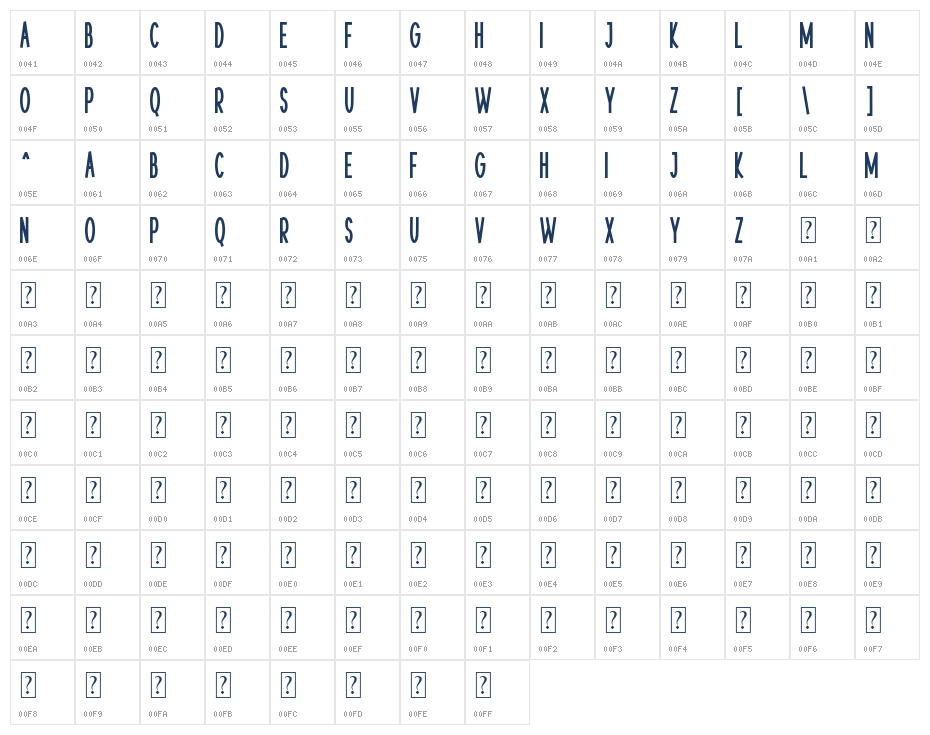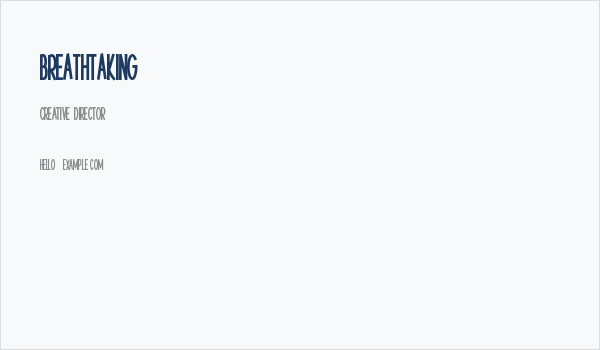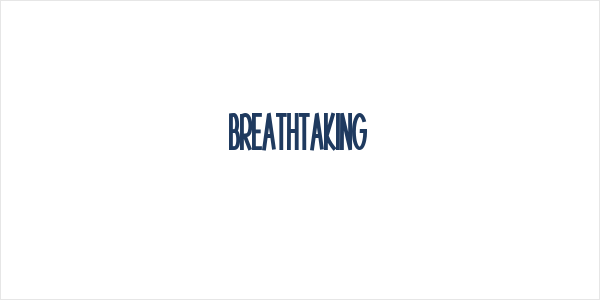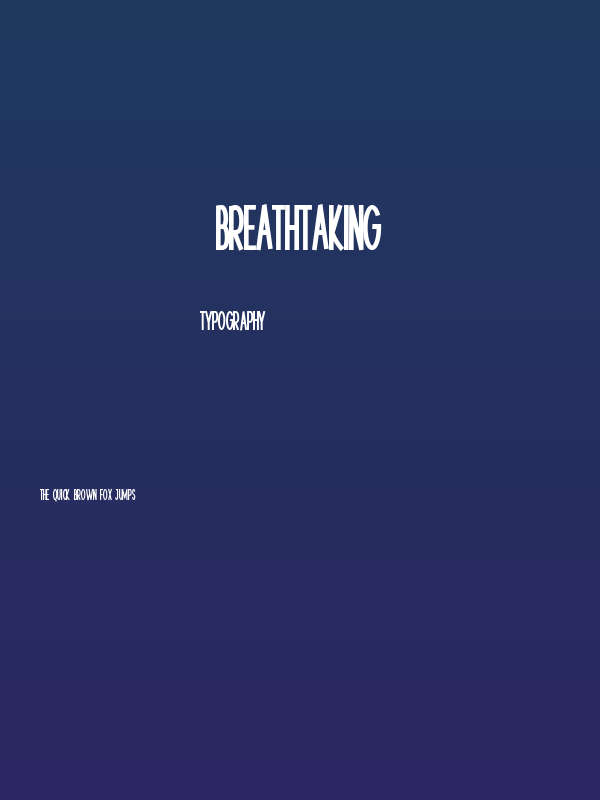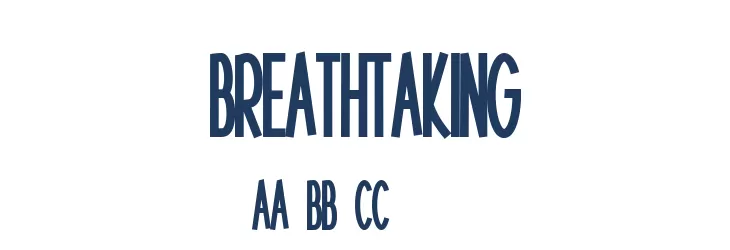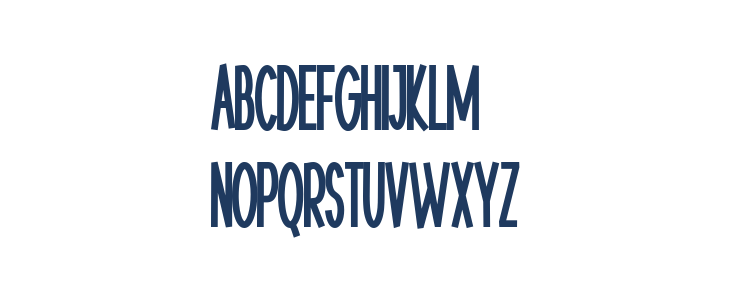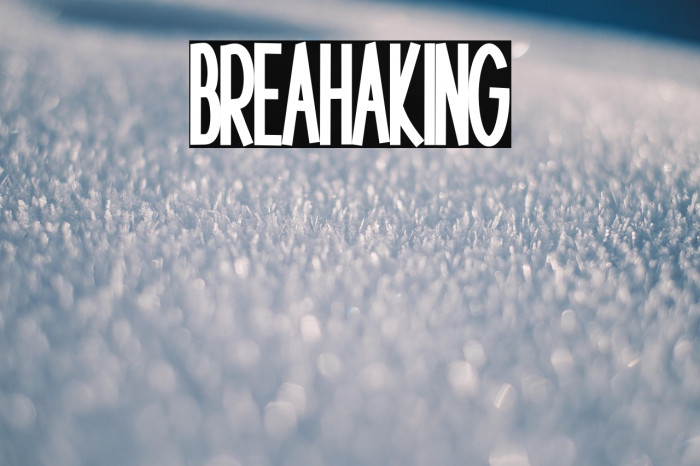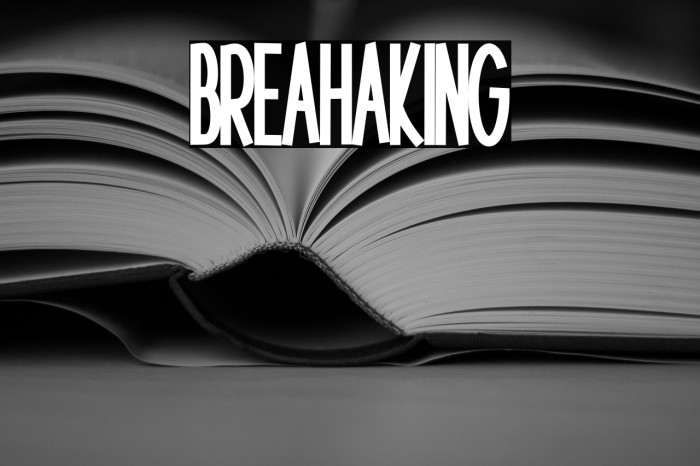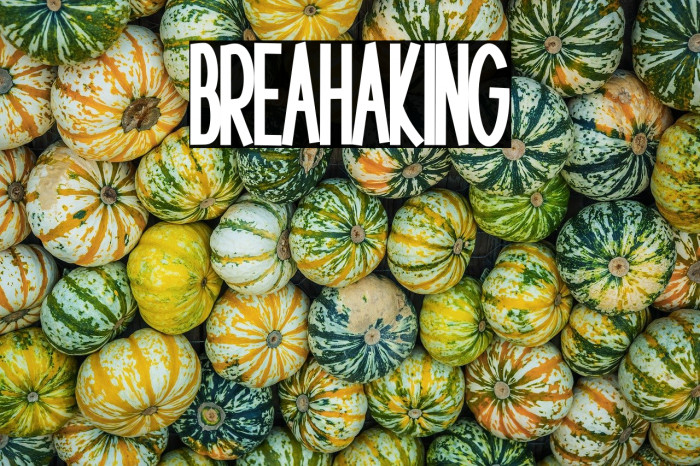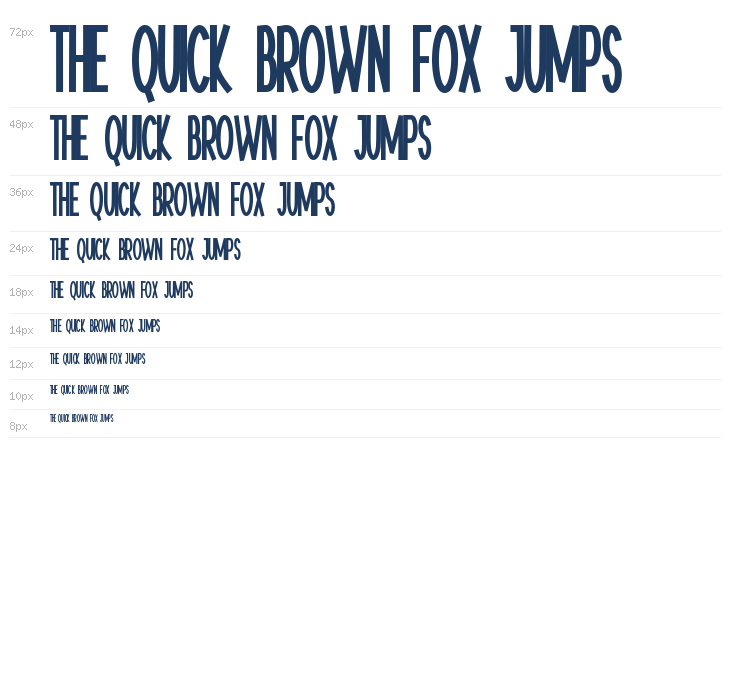
Breathtaking Font
Breathtaking Description
A bold, condensed sans-serif font with a slightly playful and modern style, characterized by thick strokes and uniform character width.
| Overall Style | Modern, Playful |
| Use Case | Headlines, Display text, Logos |